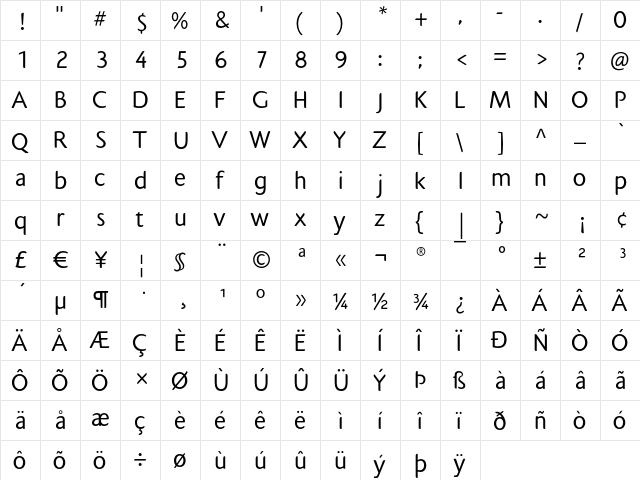
AiPaiNutaaq Regular
Design Context for AiPaiNutaaq Typeface
AiPaiNutaaq takes a measured approach to typography — its balanced proportions and neutral character make it a reliable workhorse for both digital and print work.
Pro Tip: Use AiPaiNutaaq in both headline and body roles to test its range before committing to a single application.